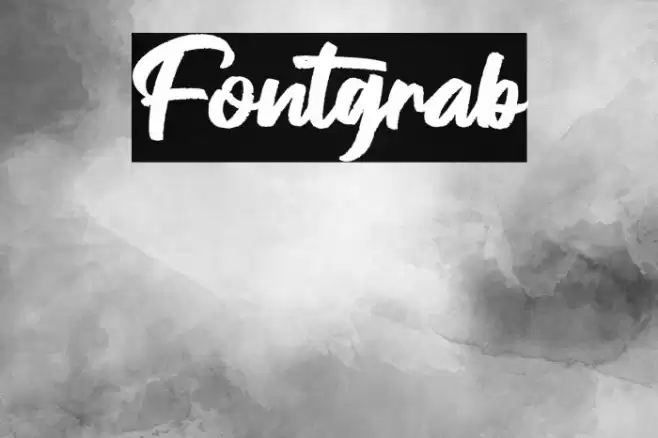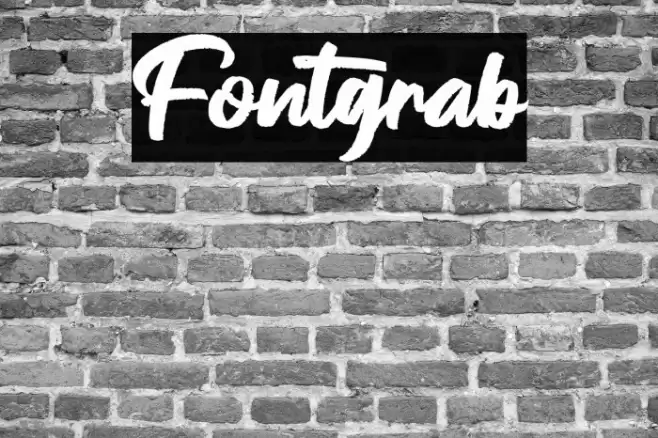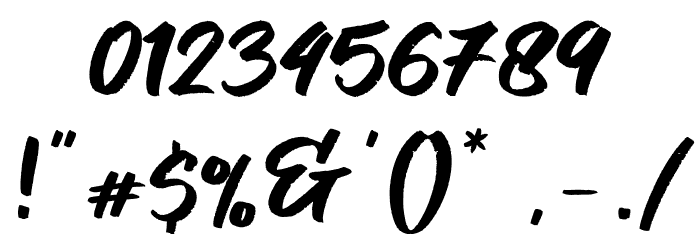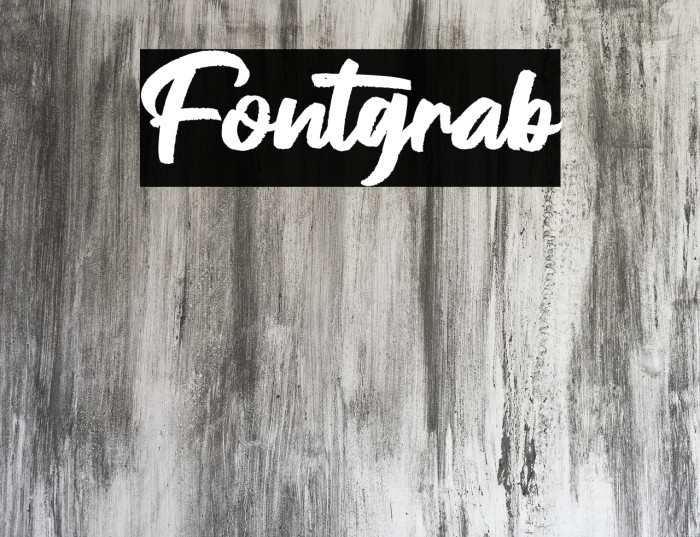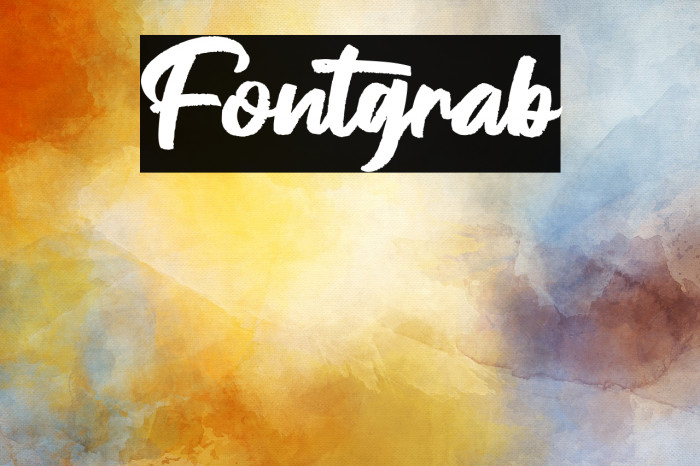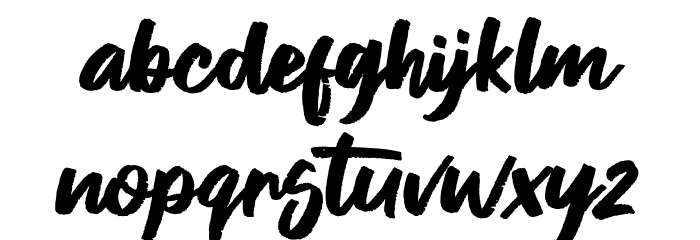
Fontgrab Font
Fontgrab Description
This font features a bold, energetic script style with a handwritten appearance. The letters are characterized by thick, flowing strokes that convey a sense of dynamism and creativity. The uppercase letters are particularly striking, with a slightly slanted orientation that adds to the font's lively feel. The lowercase letters maintain the same energetic style, with smooth curves and consistent stroke weight. Numbers and special characters are designed to match the overall aesthetic, ensuring a cohesive look across all text elements. The font's boldness and unique style make it ideal for projects that require a strong visual impact.
A bold, energetic script font with a handwritten style from Uncategorized fonts.
- Proposed Projects: Ideal for branding, logos, posters, and social media graphics where a strong, creative impact is desired.